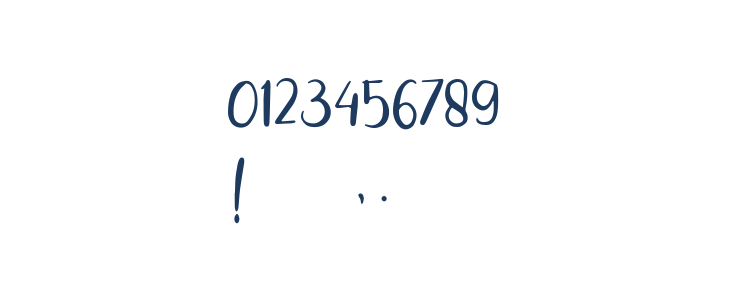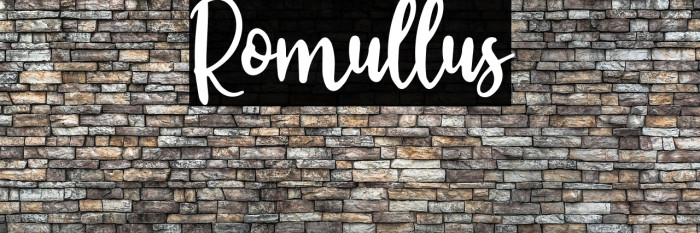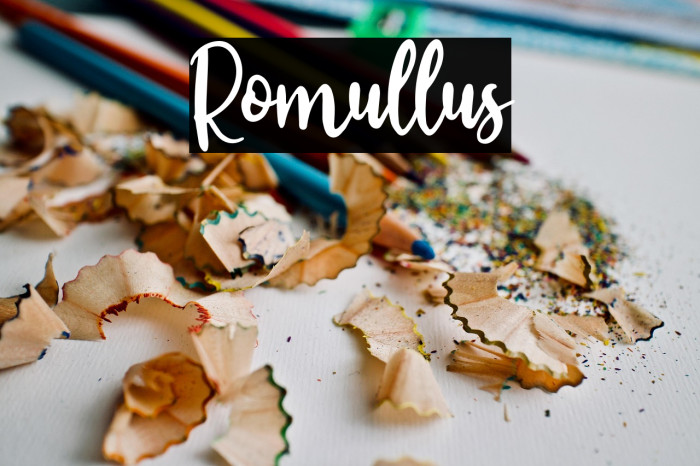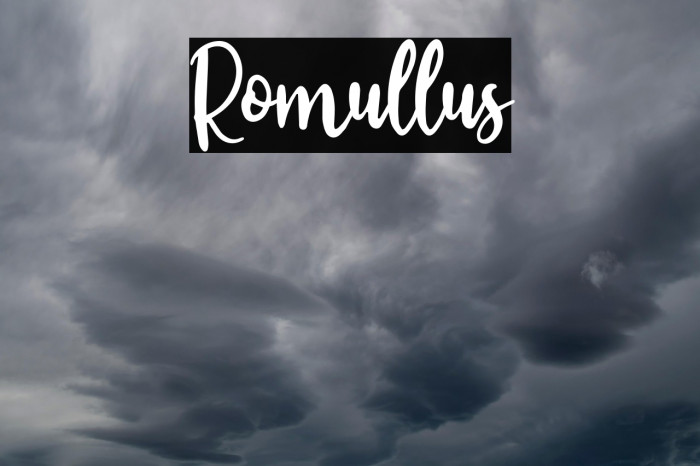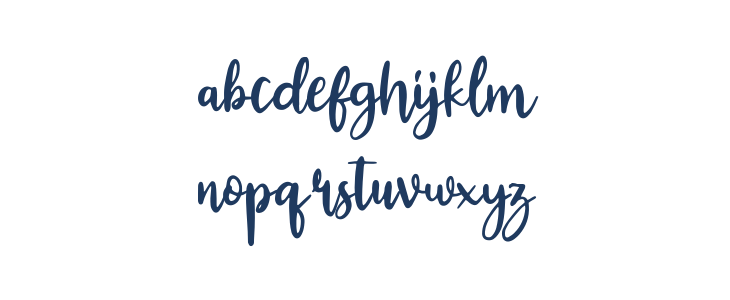
Romullus Font
Romullus Description
This font features a playful and artistic handwritten style, characterized by its fluid and dynamic strokes. The uppercase letters are tall and slightly narrow, with a whimsical flair that adds personality to each character. The lowercase letters maintain a consistent flow, with some letters featuring unique loops and curves that enhance the font's charm. The numerals are clear and legible, matching the overall style with a touch of creativity. Special characters are included, maintaining the same playful aesthetic. This font is ideal for projects that require a personal and informal touch, such as invitations, greeting cards, and creative branding.
| Use Case | Logos, Headlines, Invitations |
| Proposed Projects | Ideal for invitations, greeting cards, creative branding, and personal projects. |